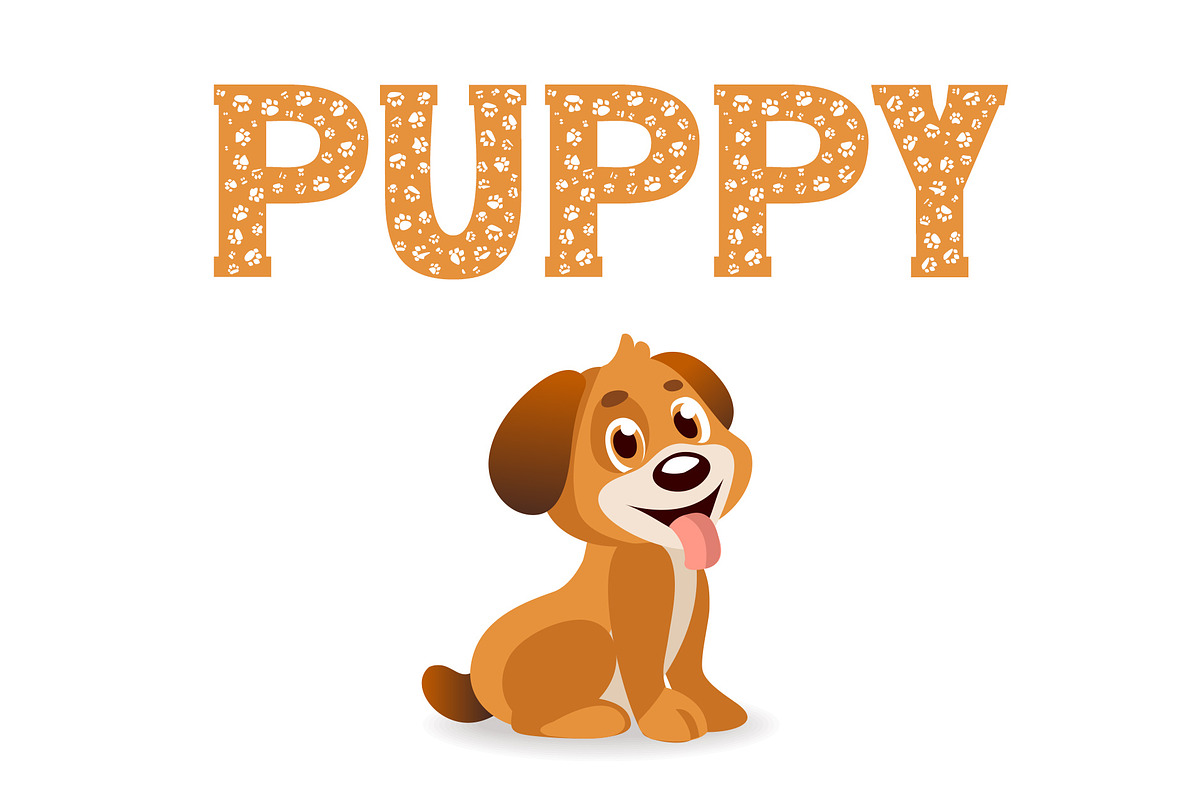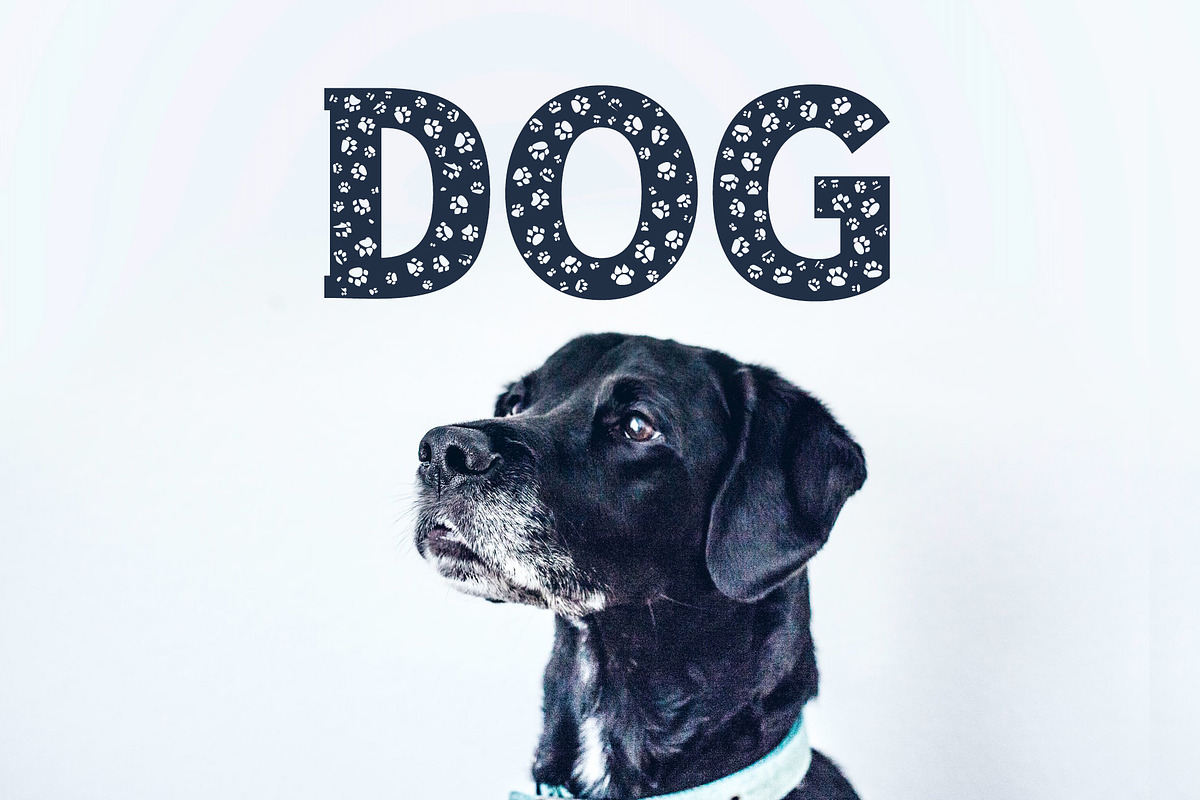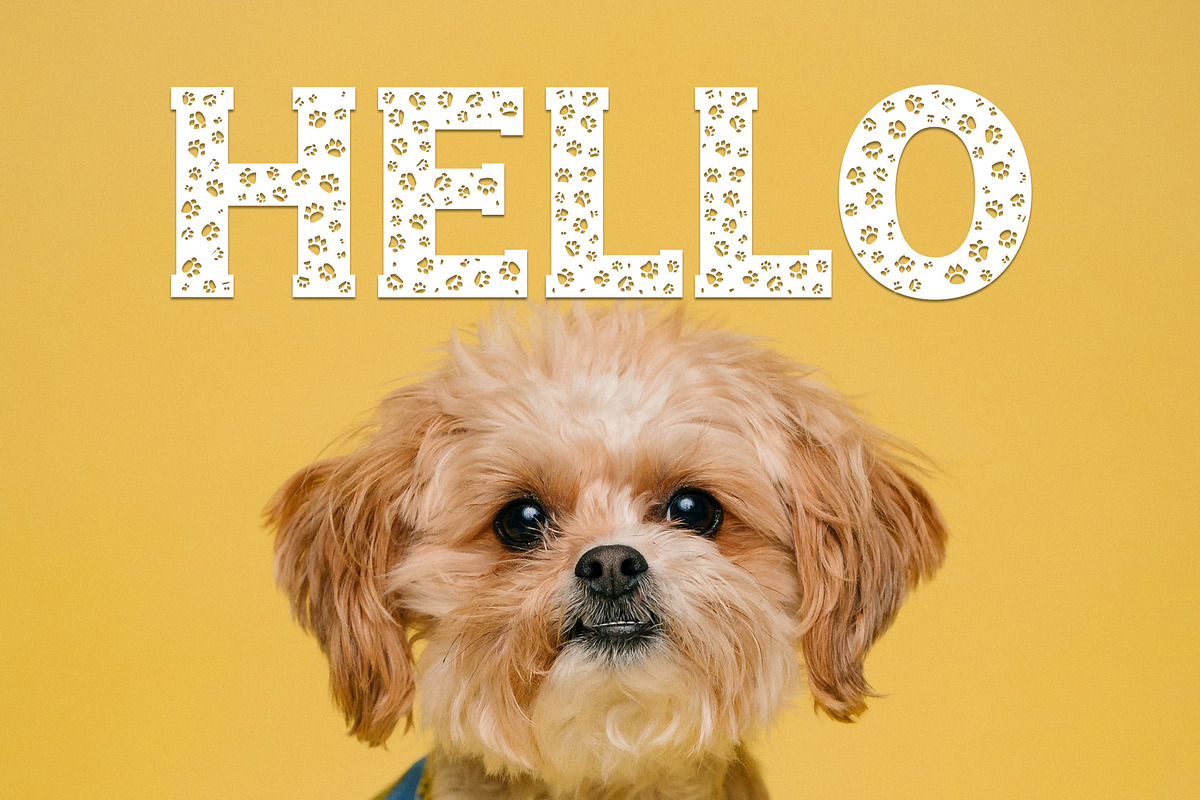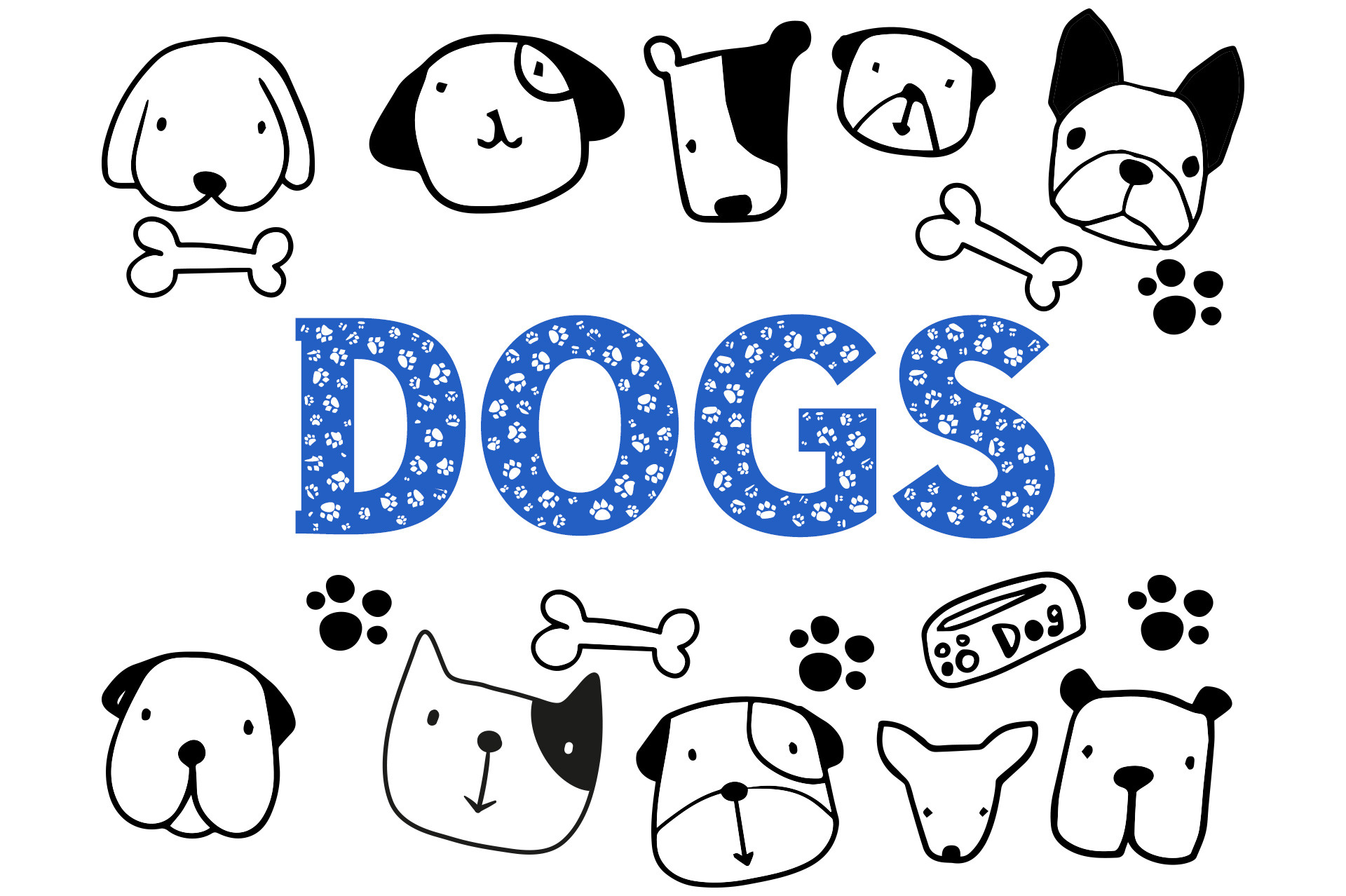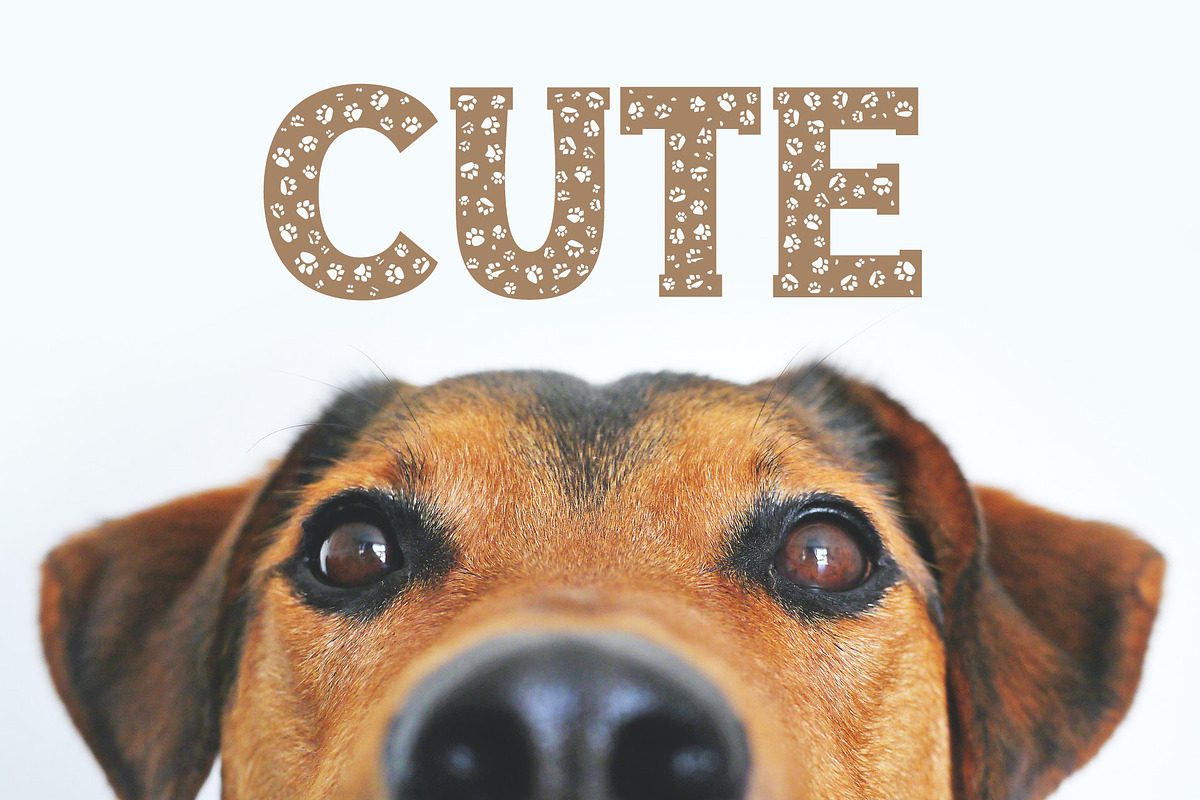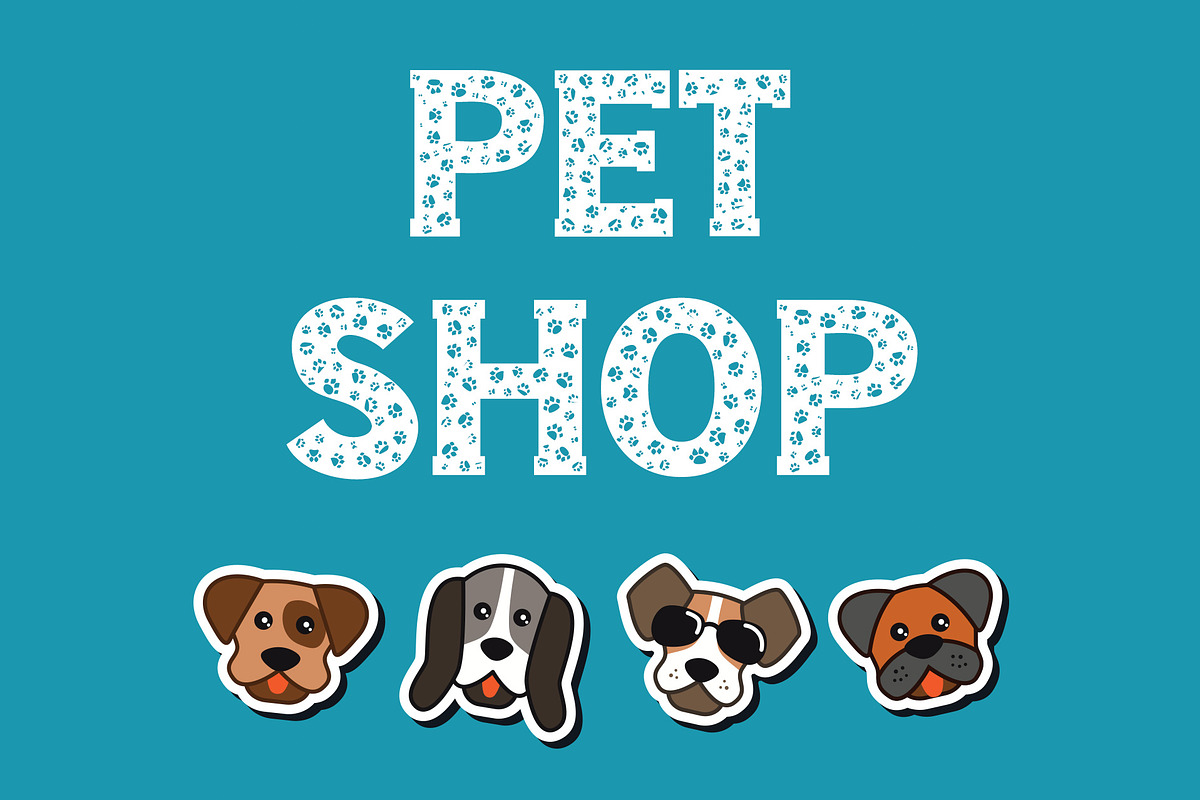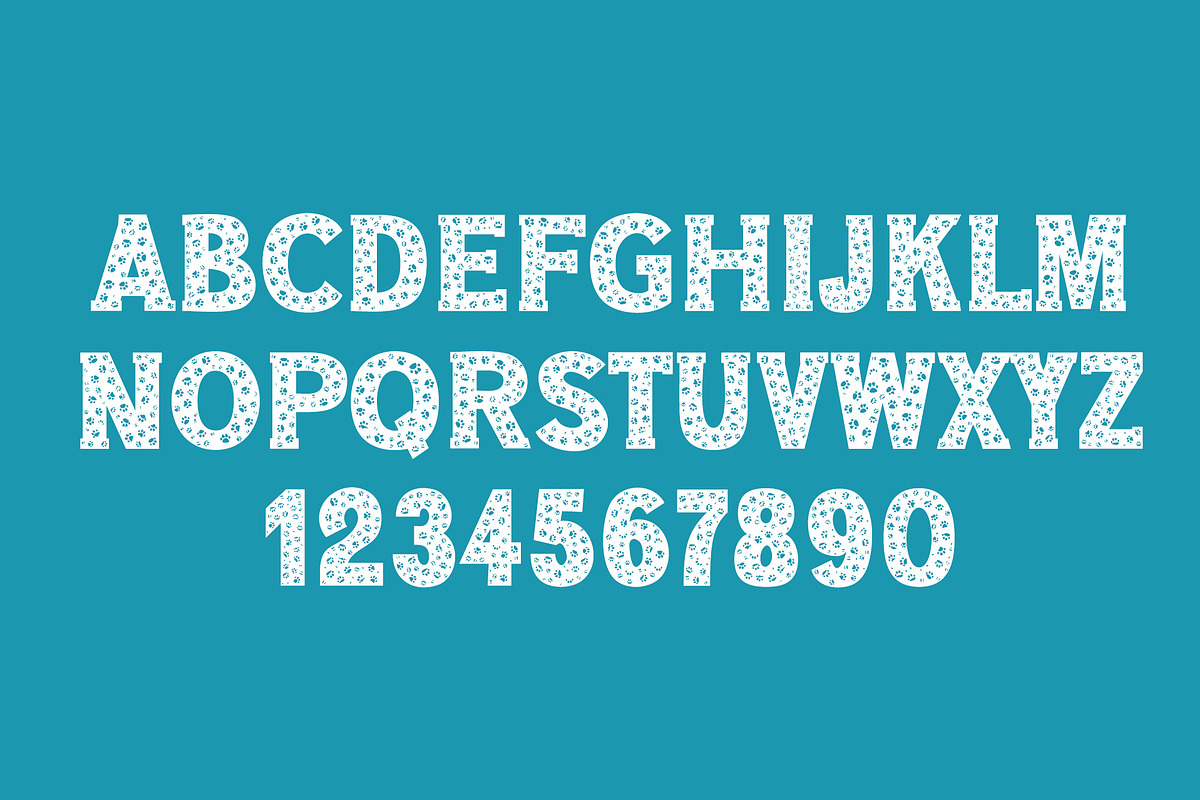
Dog Paw - Pet Font
Dog Paw is decorative pet typeface.
Dog Paw is a bold, fun and cute decorative font, featuring paws as ornaments. It is an incredible choice for creating your favorite pet related projects!
Great pet font for posters, logos, packaging, school and education projects, websites, T-Shirts and more.